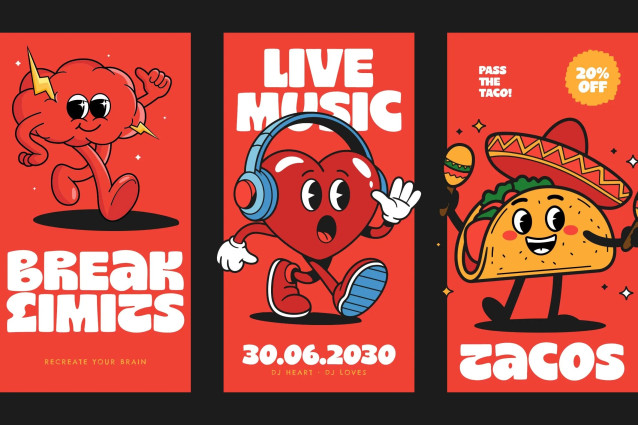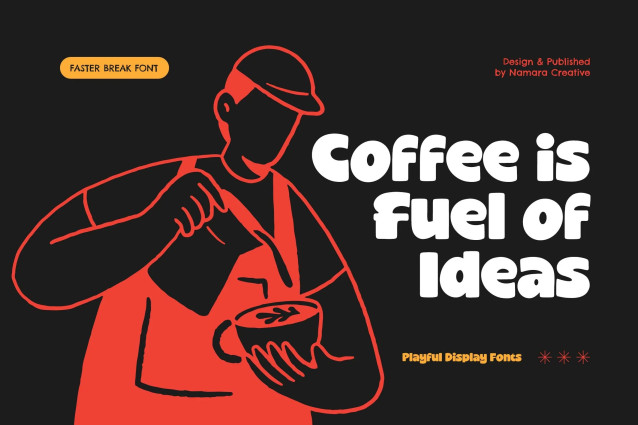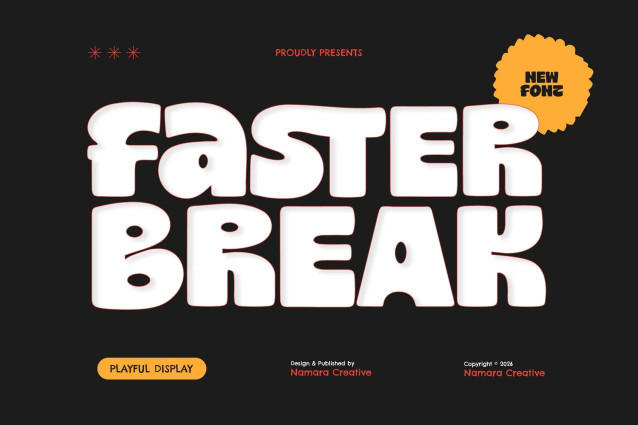
Faster Break – Chunky Bold Display Font
Bold display typeface crafted to make every headline stand out. Featuring chunky letterforms, smooth rounded corners, and expressive personality, Faster Break delivers an energetic visual impact that instantly captures attention.
Inspired by modern pop aesthetics and playful typography, Faster Break combines bold proportions with friendly curves, making it the perfect choice for brands that want to communicate confidence, creativity, and fun.
• Bold, Rounded Bubble Letterforms : Thick, even strokes and soft, friendly curves that read as confident rather than loud.
• Complete Character Set : Uppercase, Lowercase, numerals, and an extensive range of punctuation and symbols.
• PUA Encoded : Ligatures, Alternates and Multilingual Support. (Fully accessible without additional design software)